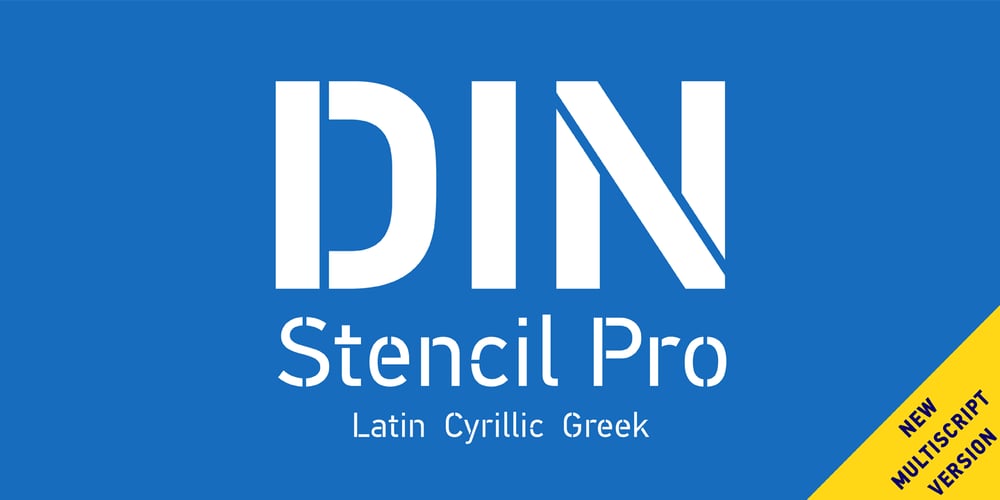
PF DIN Stencil Pro Font Family was designed by Panos Vassiliou and published by Parachute. PF DIN Stencil Pro contains 8 styles and family package options. DIN Stencil Pro on Behance. DIN Stencil Pro: Specimen Manual PDF. Despite the fact that over the years several designers have manually created stencil lettering based on DIN for various projects, there had never been a professional digital stencil version of a DIN-based typeface until 2010 when the original DIN Stencil was first released. The Pro version was released in 2014 and adds multiscript support for Cyrillic and Greek. DIN Stencil Pro was based on its original counterpart DIN Text Pro and was particularly designed to address contemporary projects, by incorporating elements and weights which are akin to industries such as fashion, music, video, architecture, sports and communications. Traditionally, stencils have been used extensively for military equipment, goods packaging, transportation, shop signs, seed sacks and prison uniforms. In the old days, stencilled markings of ownership were printed on personal possessions, while stencilled signatures on shirts were typical of 19th century stencilling. Two companies dominated the market in the mid-twentieth century: the Marsh Stencil Machine Company in the United States and the Sächsische Metall Schablonen Fabrik in Germany. Ever since the late 1930s, it was the German Sächsische Metall Schablonen Fabrik which used heavily the new DIN 1451 standard font (introduced in 1936), attempting to overthrow the reign of the Didot-style modern roman which was at the time the most common stencil letter in Germany. These letters were manufactured mainly as individual zinc stencils which could be ordered in sizes between 10 and 100mm. The DIN Stencil family manages to preserve several traditional stencil features, but introduces additional modernities which enhance its pleasing characteristics which make it an ideal choice for a large number of contemporary projects. Furthermore, the spacing attributes of the glyphs were redefined and legibility was improved by revising the shape of the letterforms. The DIN Stencil Pro family is an enhanced version of the popular DIN Stencil. It consists of 8 diverse weights from the elegant Hairline to the muscular Black and supports Latin, Cyrillic, Greek, Eastern European, Turkish and Baltic. The new version 3.0 includes several additions such the recently unicode encoded character of the German uppercase Eszett (ẞ), the Russian currency symbol for Rouble (₽), Ukrainian Hryvnia (₴), Azeri and Kazakh letterforms.